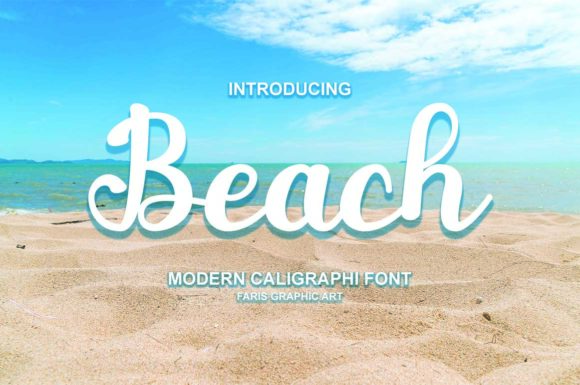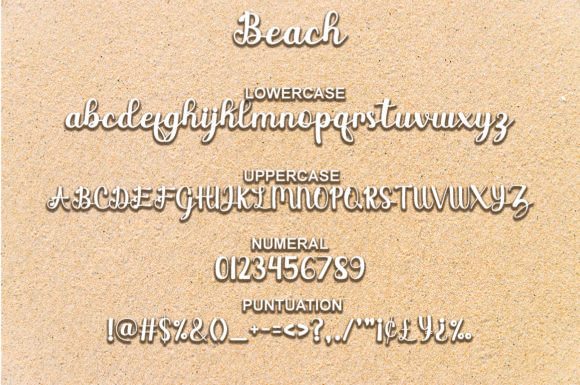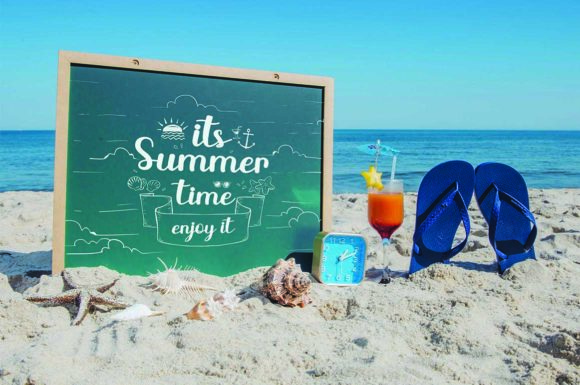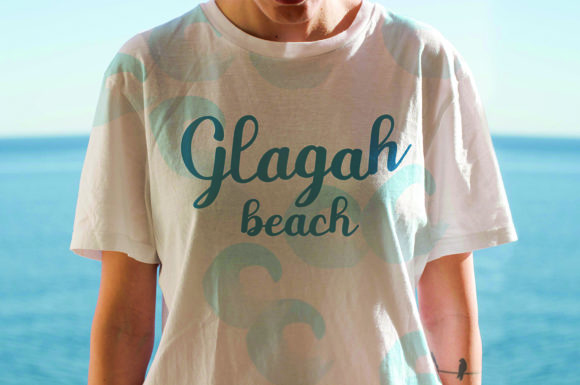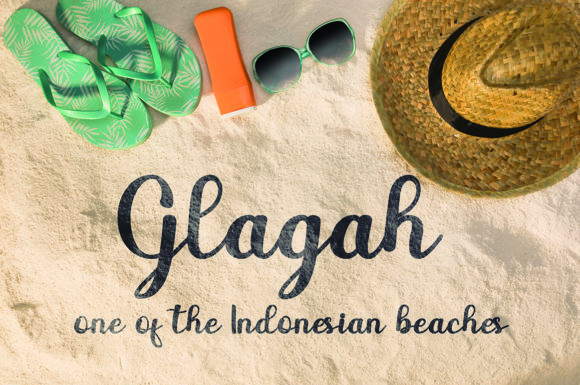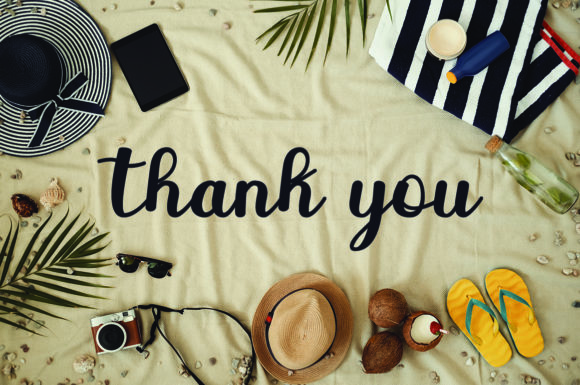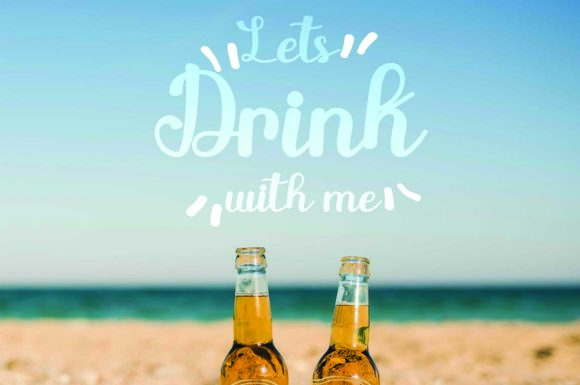
Beach Font
About Beach Font
Beach is a flowing handwritten font, described by a summery vibe, perfect for your favorite projects. Fall in love with its incredibly distinct and friendly style!